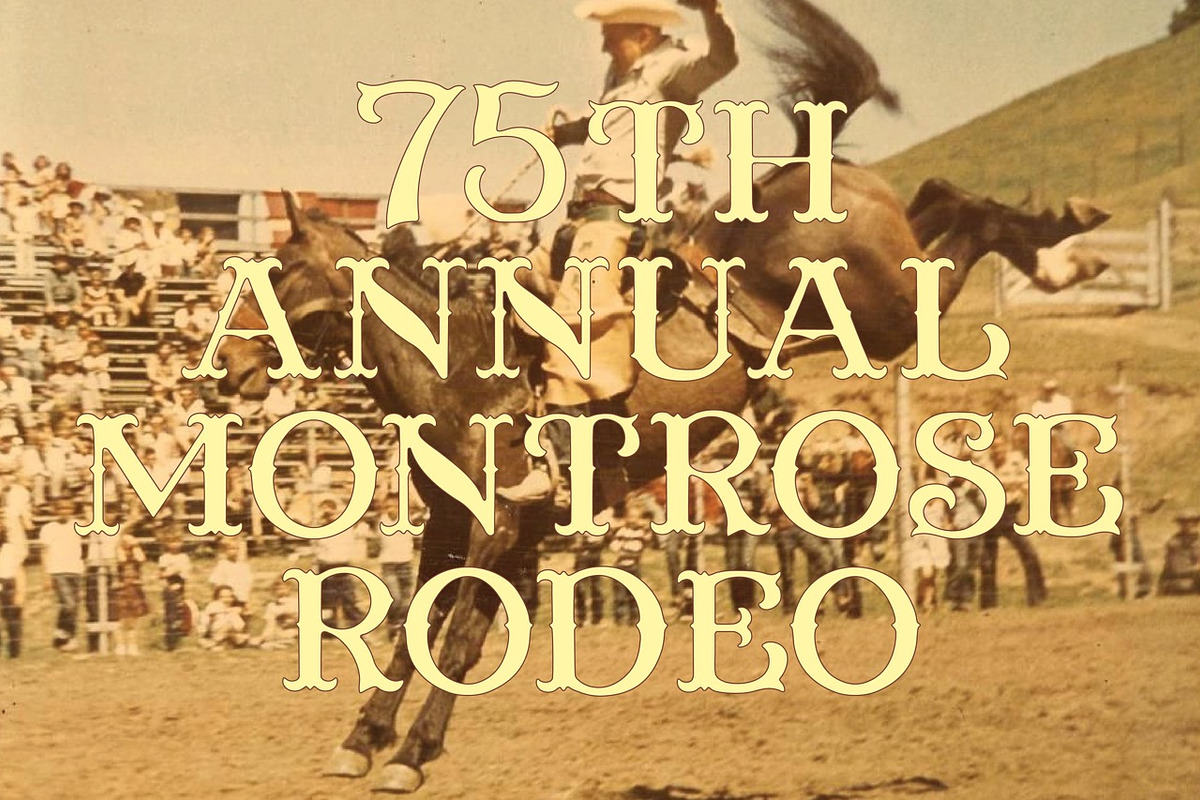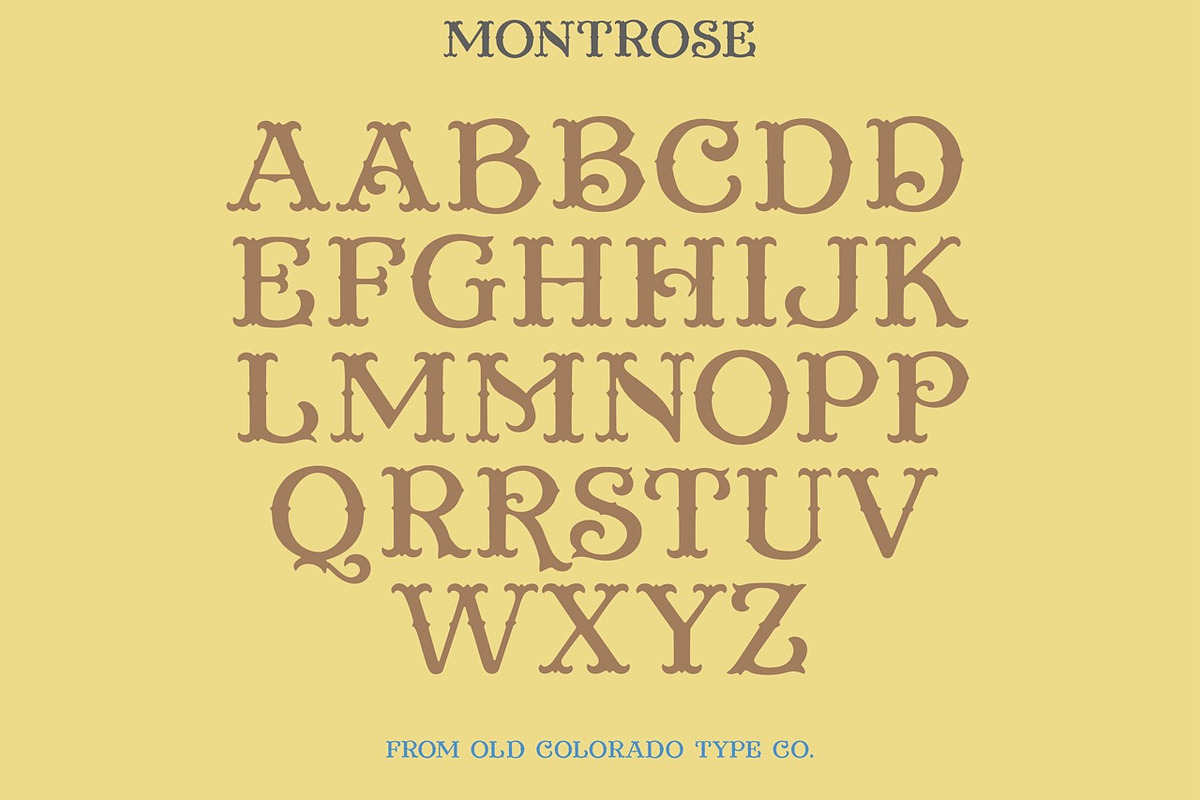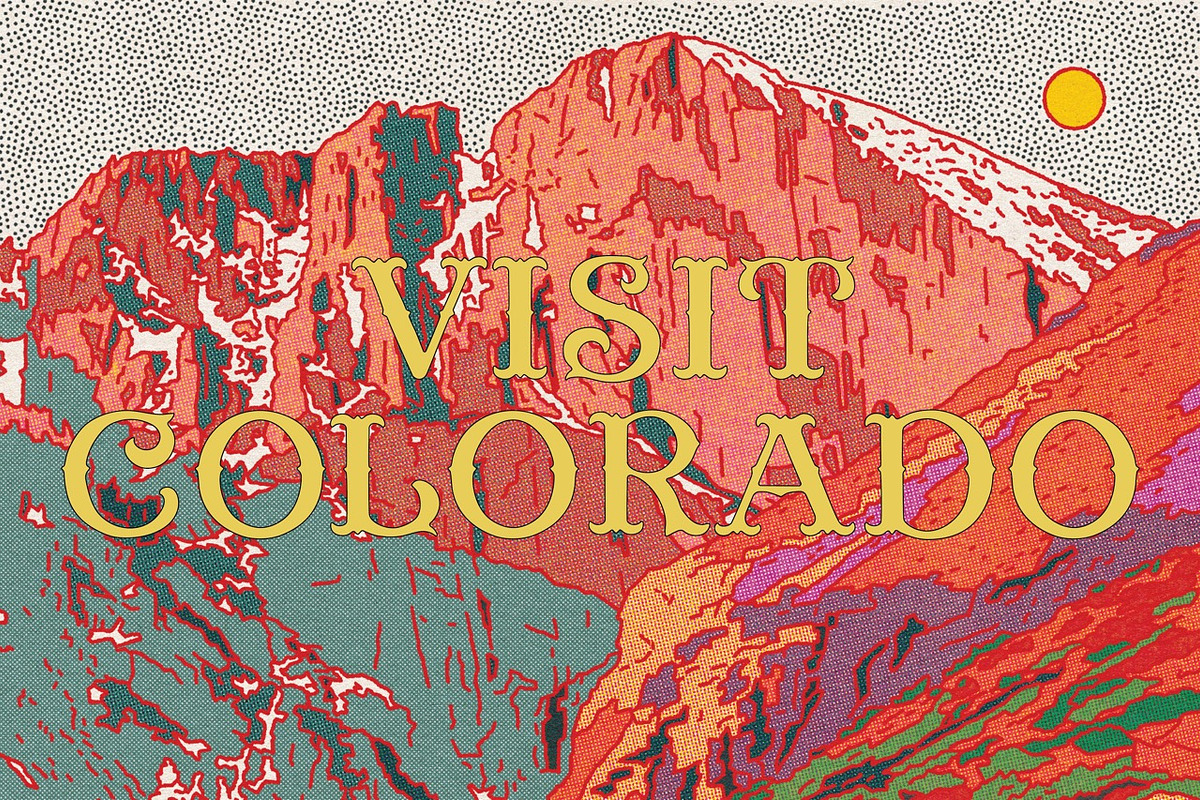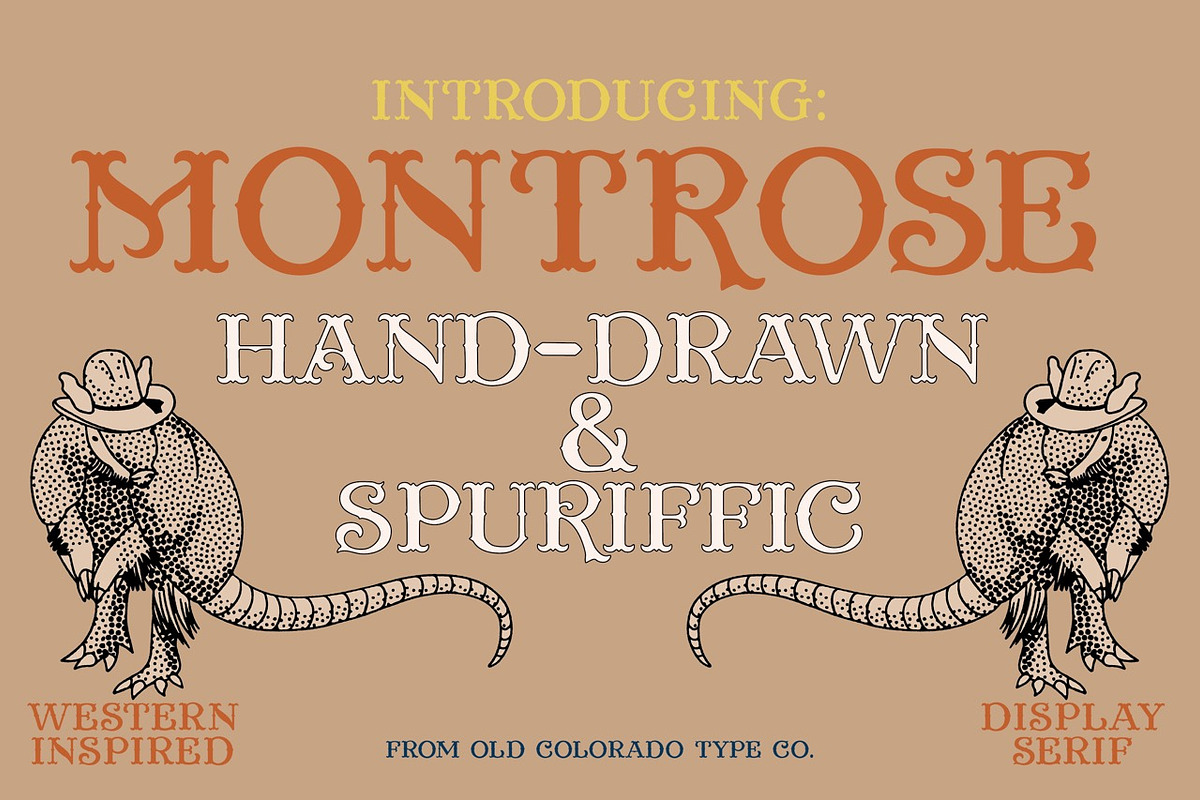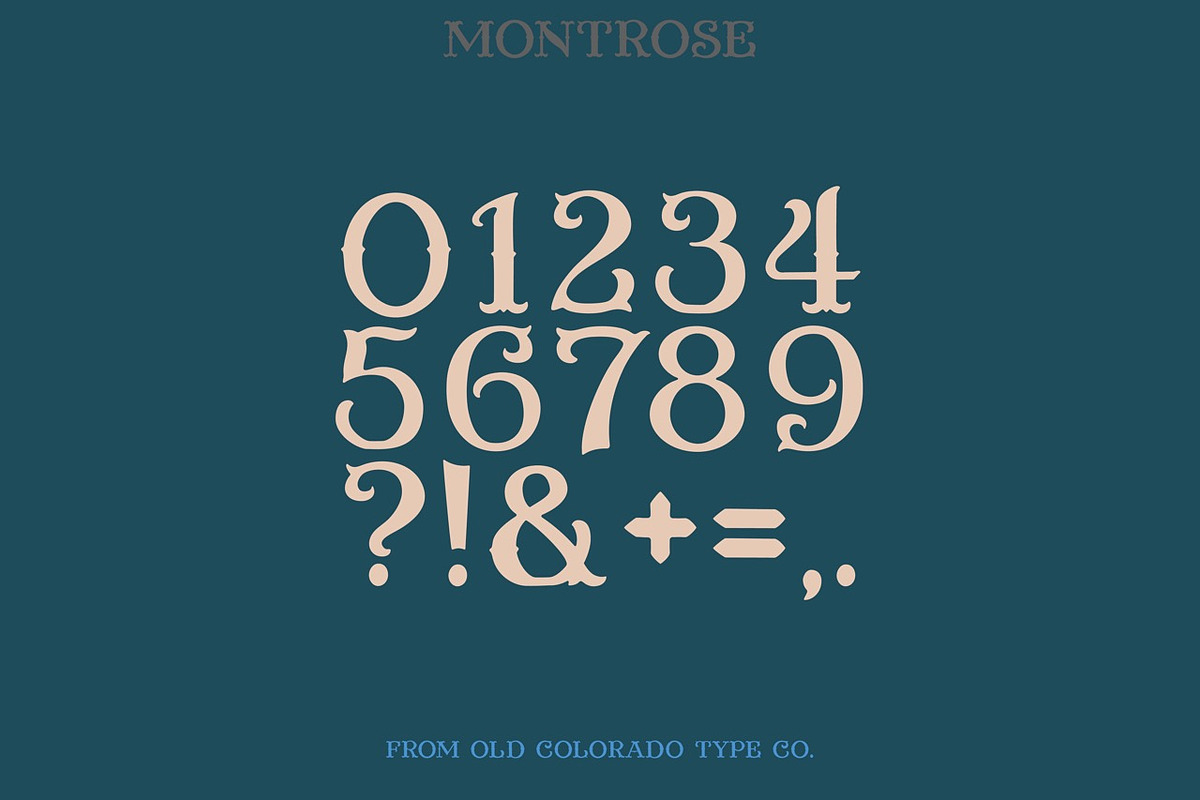
Montrose- Western Spur Serif
Western cowboy typeface that is imperfectly hand-drawn featuring so many spurs- Perfect for any project needing a desert or old west flair. The frontier is calling! Sling on your boots and create a heritage masterpiece with this vintage inspired serif font.